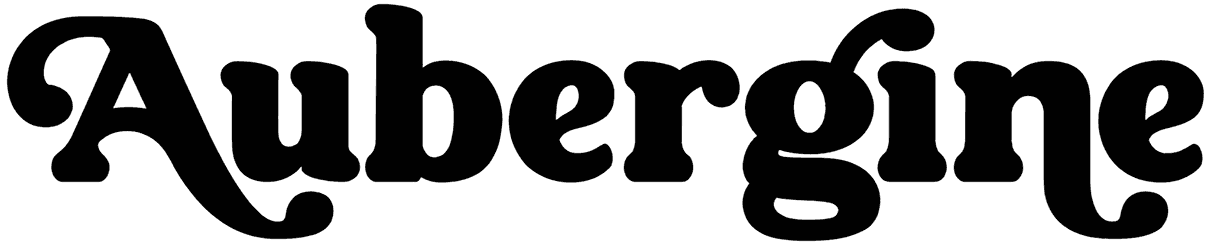
Aubergine Font
Aubergine is an adventurous, fancy font that, despite its simple appearance, is very versatile and can be used in various projects. This retro font has a clean design without additional decorations, which gives you complete freedom in choosing the background.
On the other hand, it has thick letters that are expressive enough to draw viewers’ attention to posters, advertisements, and banners, and can convey your message loudly. Don’t be afraid of the lack of numbers and use Aubergine to become first class.